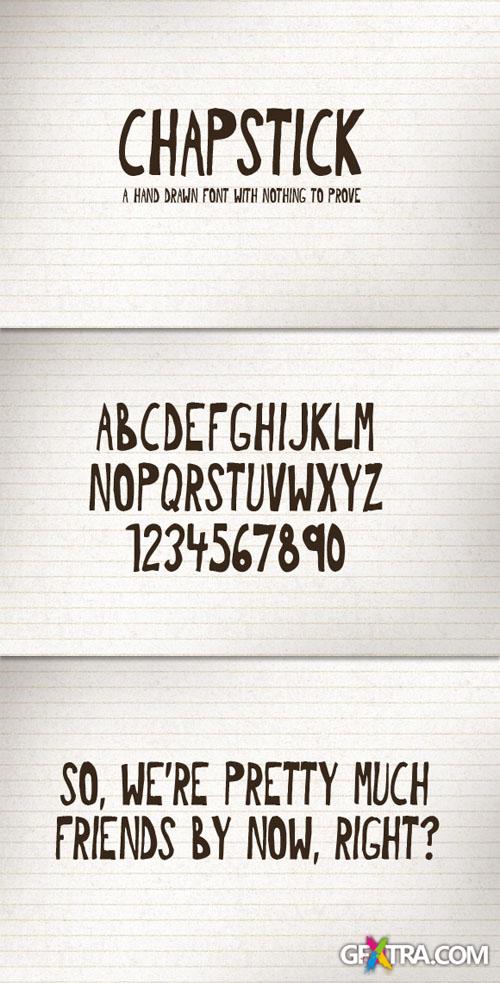
WeGraphics - Chapstik: A Hand Drawn Font Face
Chapstik is a hand drawn font that has a sketchy notebook doodle feel. It?s great for title work in grungy style designs. Web fonts and CSS are included for embedding.